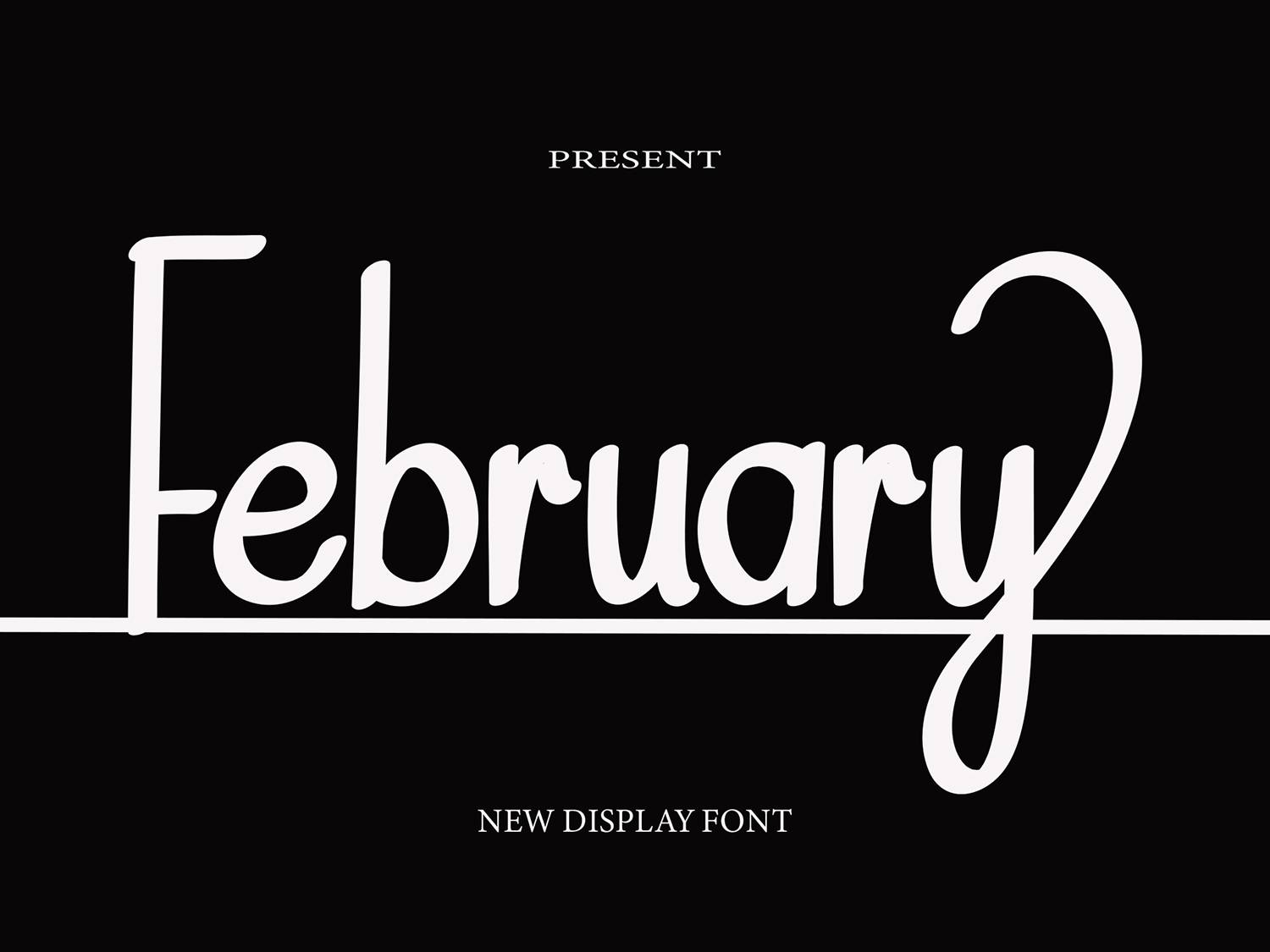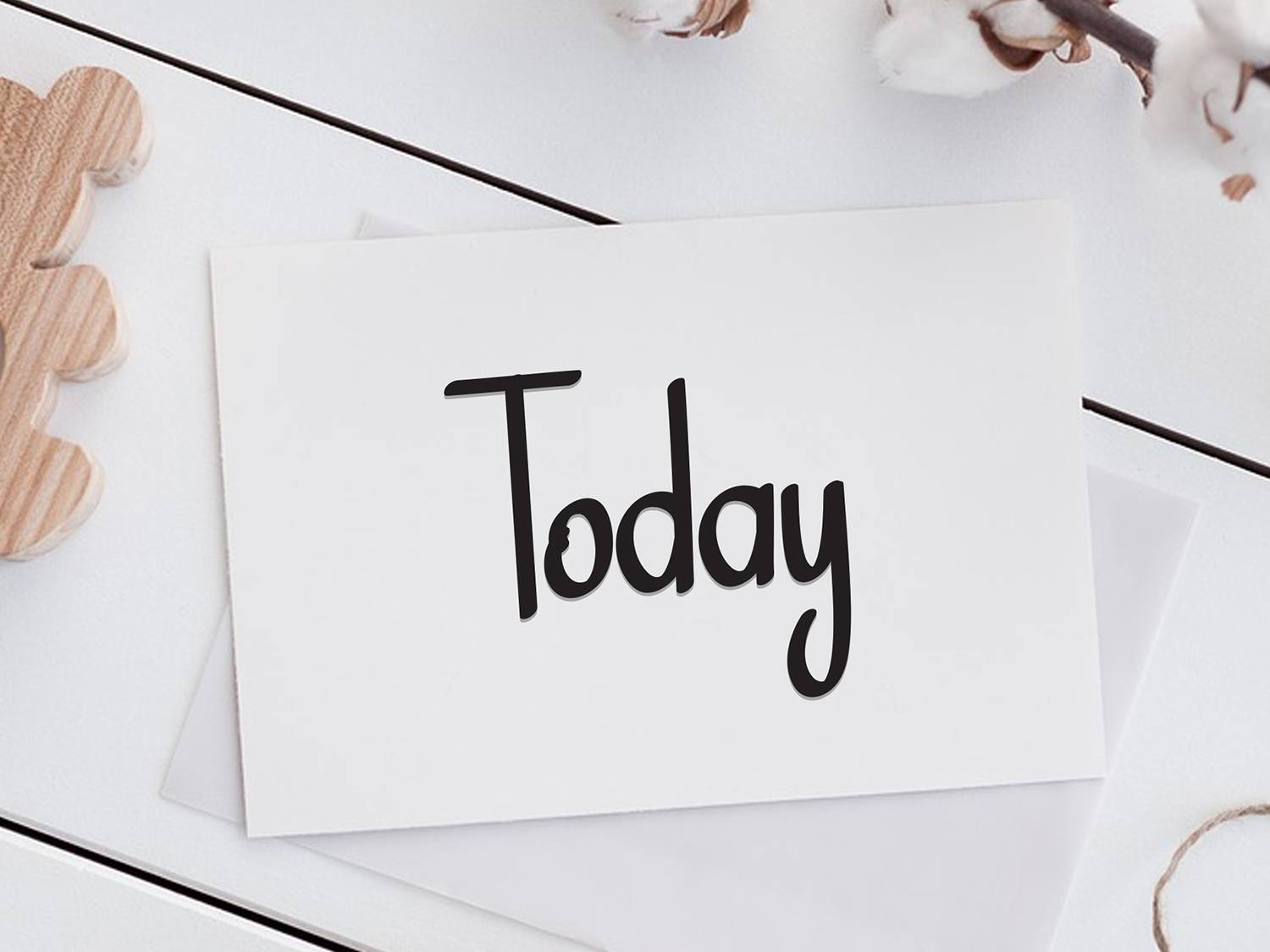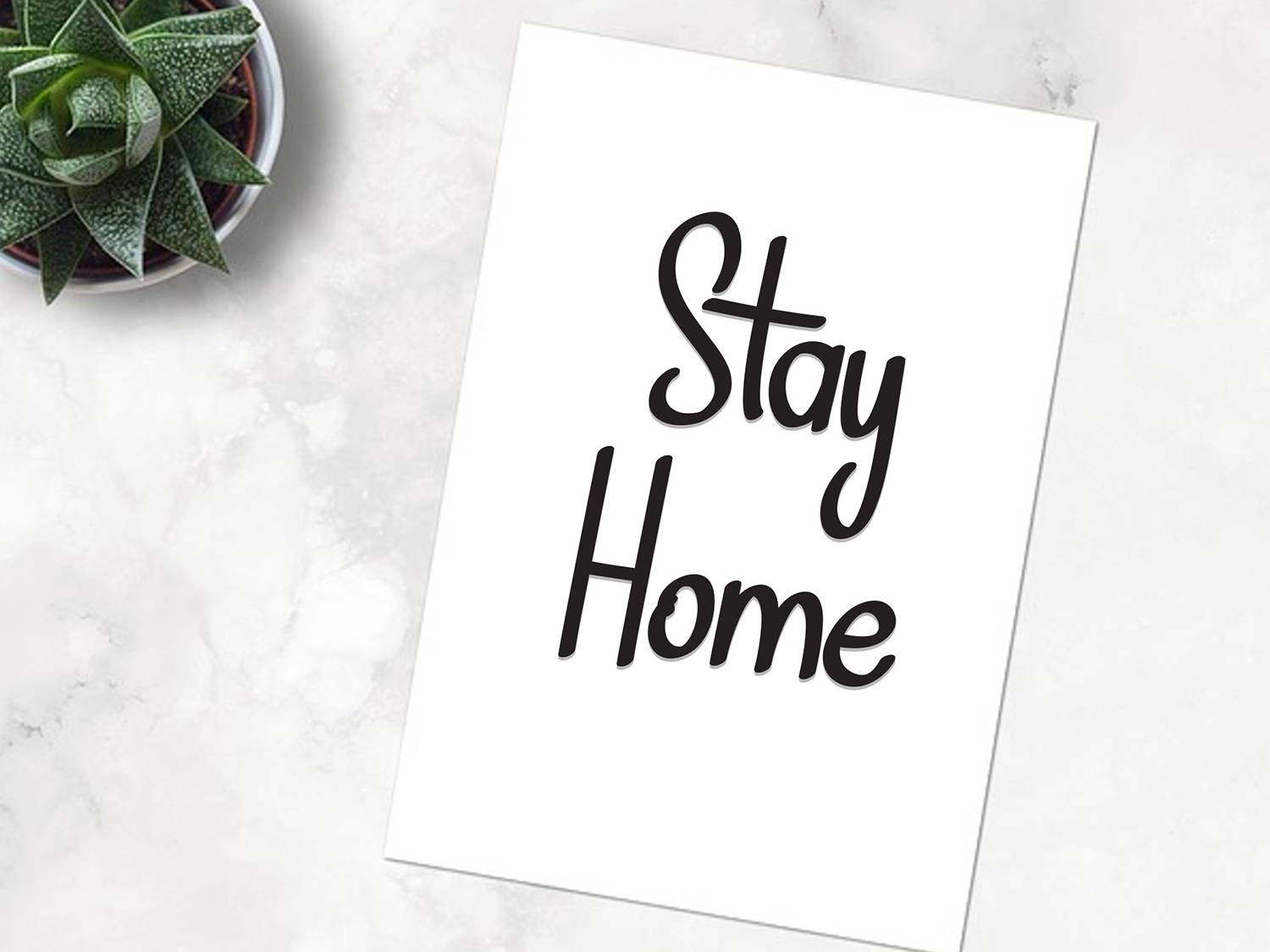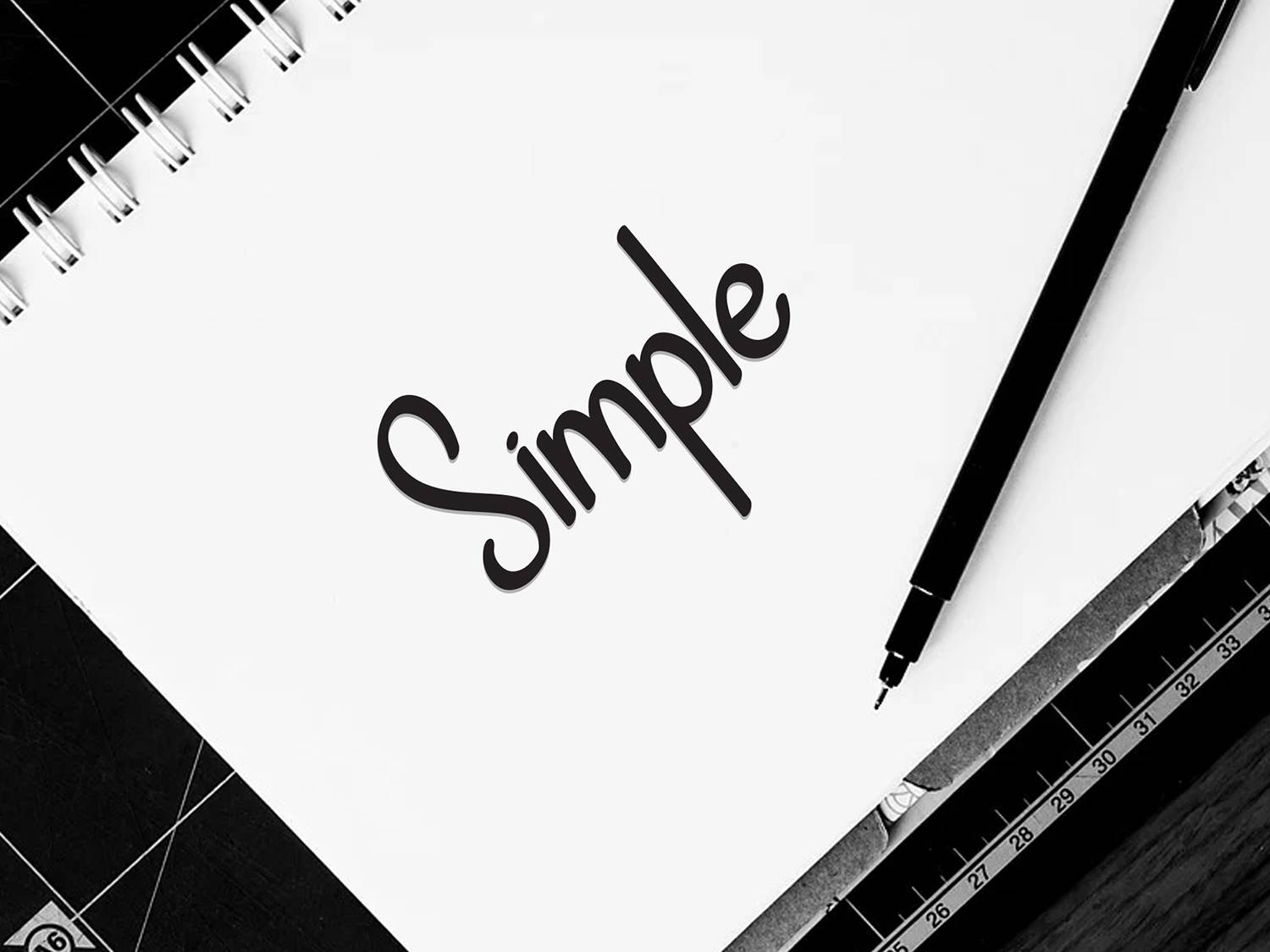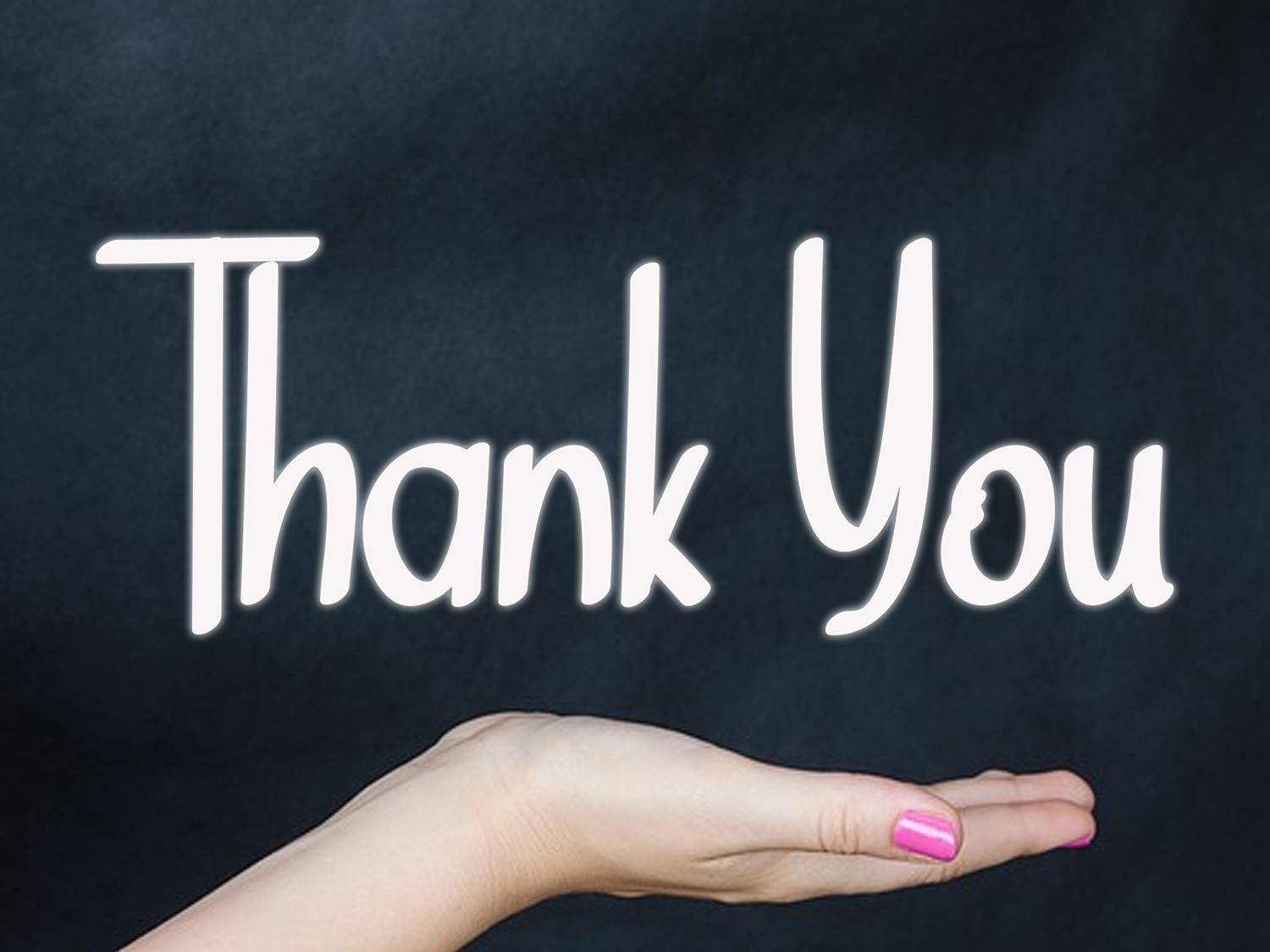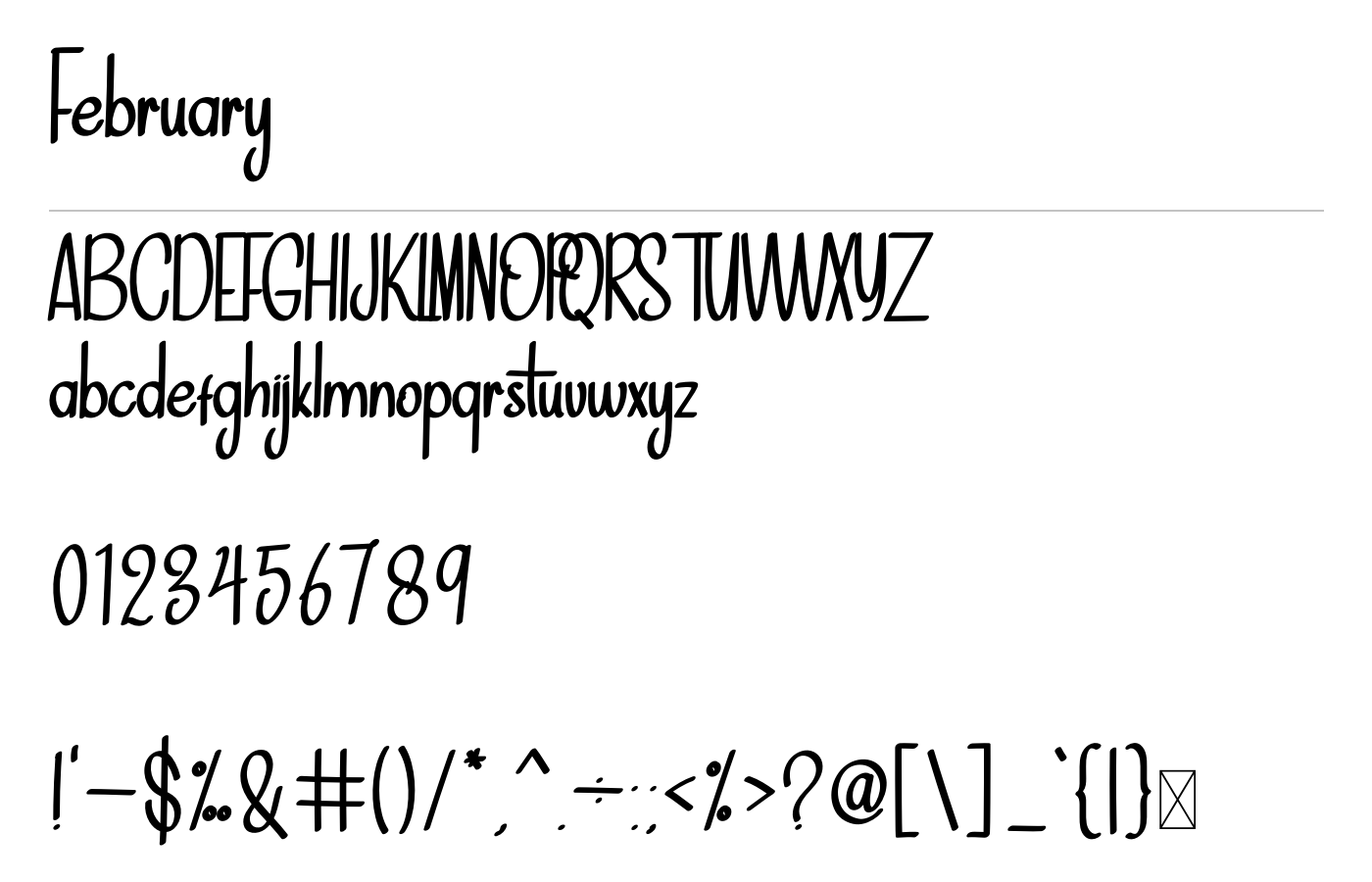
February Font is a playful and quirky sans serif typeface with tall, narrow letterforms and a hand-drawn appearance that adds personality and warmth. Its uneven strokes and whimsical details make it perfect for creative projects, casual branding, and fun headlines where a relaxed yet distinctive look is desired. This font works well in invitations, posters, and websites that aim for a friendly, approachable vibe.
February Font
About February Font